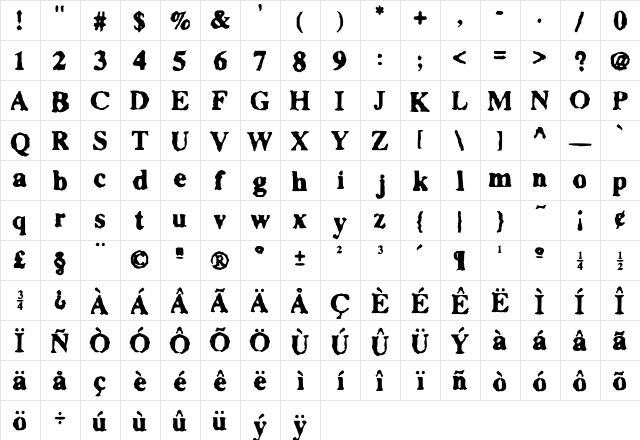
Facsimiled Bold Font Preview
Facsimiled Bold
Facsimiled Bold Font Details
Design Context for Facsimiled Typeface
Facsimiled is a composed and adaptable typeface that performs quietly and consistently across a wide range of design contexts. Its bold stroke weight gives it real presence on the page.